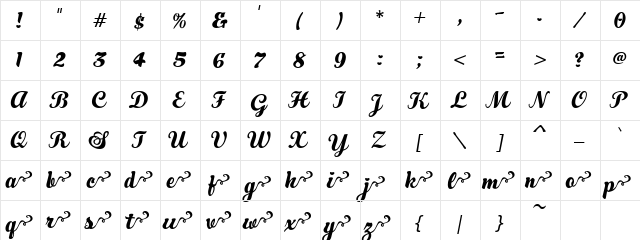
CK Puppy Love Swashes Regular
Design Context for CK Puppy Love Swashes Typeface
CK Puppy Love Swashes brings a calligraphic fluidity to the page — its connecting strokes and expressive curves give it an unmistakably human quality.
Font Pairing: Combine CK Puppy Love Swashes with a simple geometric sans for maximum contrast — the tension between flowing curves and clean structure is a classic typographic pairing.
Pro Tip: Pair CK Puppy Love Swashes with a clean sans-serif for supporting text. The contrast between fluid script and geometric structure creates an elegant typographic hierarchy.